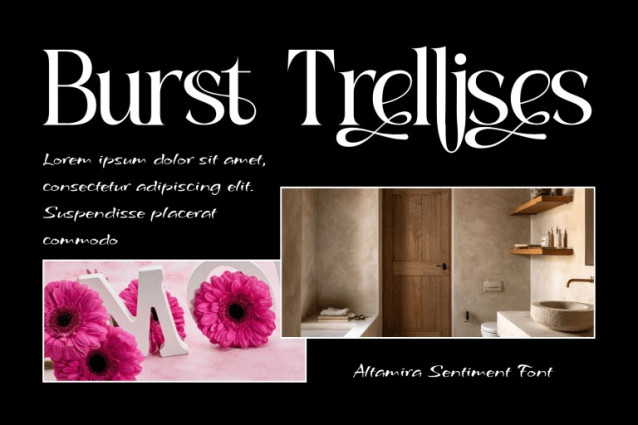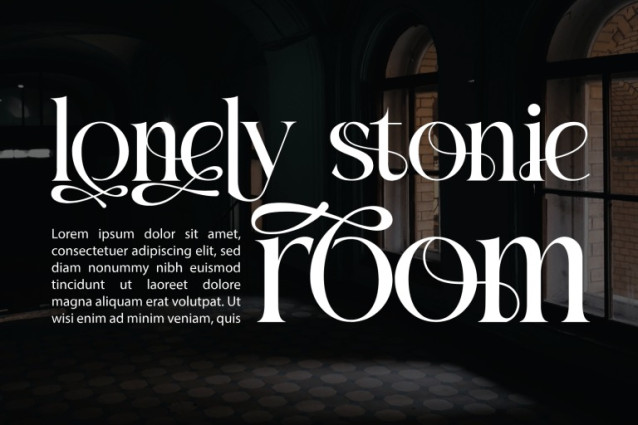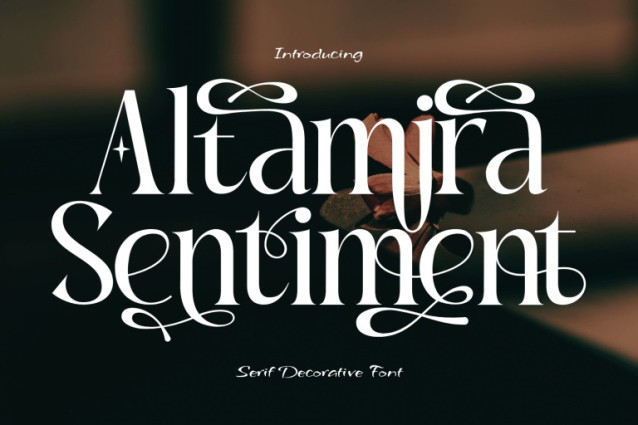
Altamira Sentiment Font
Altamira Sentiment – Elegant Serif Font is a luxurious serif display font that blends classic sophistication with modern flair. Each letterform is crafted with refined curves, elegant contrast, and delicate decorative swashes that bring a sense of romance and artistry to your typography. The design combines sharp serifs with graceful flourishes, evoking timeless beauty and expressive emotion — ideal for projects that require both charm and class.
Uppercase & Lowercase Letters
Approximately 100 Special Ligatures for refined letter combinations
Numerals & Punctuation for complete usability
Accented Characters for multilingual support
🔤About 100 ligatures combined with Stylistic Alternates Font: